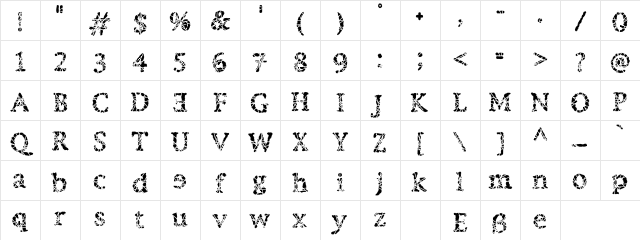
VTEbola Zaire Free Font
VTEbola Zaire
Style: Zaire
Design Context for VTEbola
VTEbola is a composed and adaptable typeface that performs quietly and consistently across a wide range of design contexts.